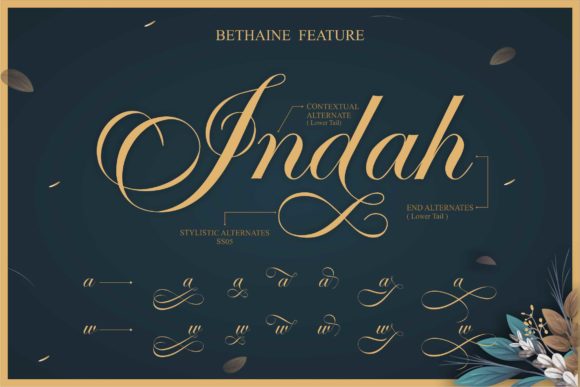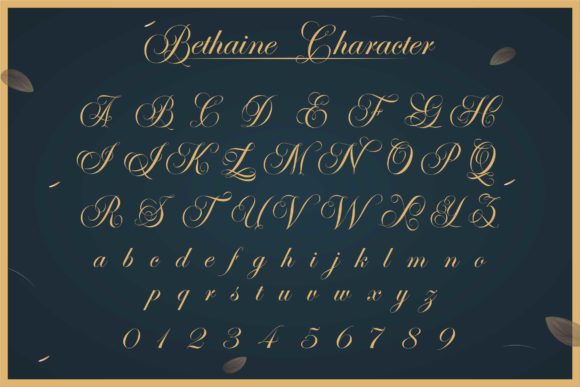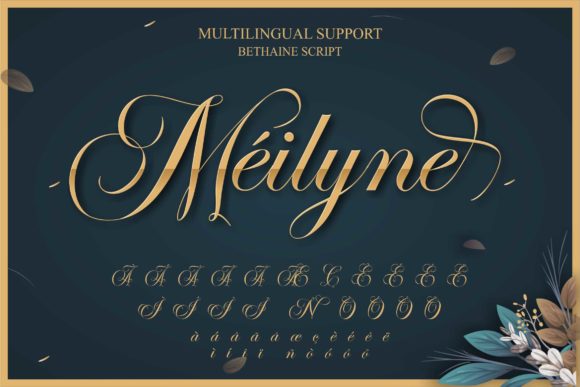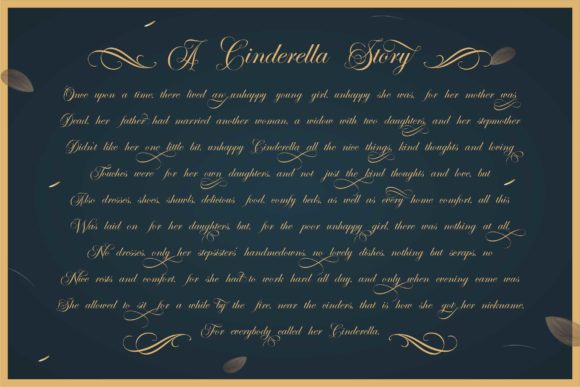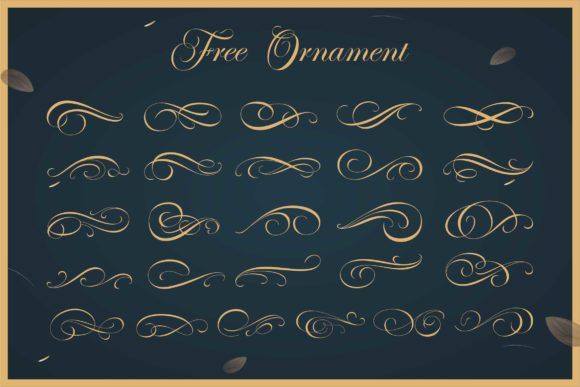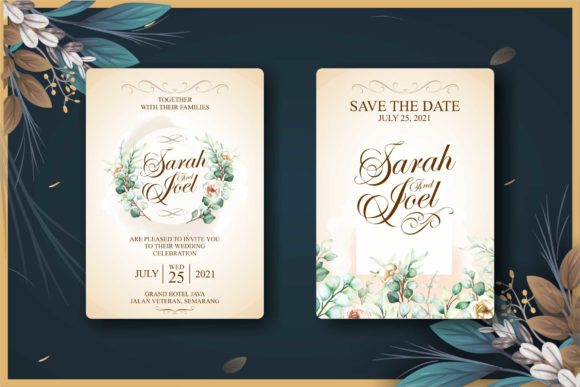
The Elegant Script of the Ancients: Introducing Bethaine Font
As a designer, have you ever been captivated by the elegance of ancient manuscripts? The way the script flows effortlessly, with each letter blending seamlessly into the next? It’s a moment of pure creative inspiration, and it’s exactly what sparked the creation of Bethaine Font. This exclusive script font is a masterful recreation of the classic handwriting styles of yesteryear, carefully crafted to evoke a sense of luxury and sophistication.
Bethaine Font is the perfect choice for designers seeking to add a touch of classic elegance to their work. With its smooth lines, gorgeous glyphs, and stunning alternates, it’s ideal for wedding media, book covers, greeting cards, logos, branding, business cards, and certificates. Plus, its PUA encoding ensures that you can access all the glyphs and swashes with ease, making it a valuable addition to any designer’s toolkit.
Bethaine Font Key Features
- Font Family: Bethaine Font comes in two font families, Bethaine and Bethaine Bold.
- Unique Characteristics: Bethaine Font features a unique blend of modern and vintage elements, with intricate details and elegant lines, making it suitable for luxury and high-end branding.
Bethaine Font Review
I recently had the chance to work with the Bethaine font, and I must say it’s a mixed bag. Here’s what I think:
- Unique and stylish design: Bethaine has a distinct, elegant feel to it that sets it apart from other fonts.
- Good legibility: The font is clear and easy to read, making it suitable for body text and headings.
- Cross-platform compatibility: Bethaine works well on both Windows and Mac, with no noticeable issues.
- Limited character set: Bethaine’s character set is somewhat limited, which may not be ideal for languages that require a wider range of characters.
- Not ideal for very small sizes: The font can become blurry and difficult to read when used at very small sizes.
- No bold or italic variations: While the font itself is stylish, the lack of bold or italic variations limits its versatility.
Overall, I think Bethaine is a solid choice for designers who want a unique, elegant font. However, its limitations mean it may not be suitable for every project. If you’re looking for a font that’s a bit more versatile, you may want to consider other options.
Tips for Getting the Most Out of Bethaine Font
Here are some tips for getting the most out of Bethaine font:
- Use Bethaine font for headings and titles to add a touch of elegance and sophistication.
- Pair Bethaine font with other elegant fonts to create a harmonious and balanced design.
- Experiment with different font sizes and colors to create visual interest and emphasis.
Bethaine font is suitable for a variety of design projects, including:
- Corporate branding and marketing materials
- Editorial and publishing designs
Alternatives to Bethaine Font for Designers
Lato is a modern sans-serif font designed by Łukasz Dziedzic. It’s a great alternative to Bethaine Font for designs that require a clean and minimalist aesthetic. Lato is highly legible and works well in both digital and print media. Compared to Bethaine Font, Lato has a more geometric and streamlined appearance, making it ideal for headings and body text in modern designs.
Montserrat is a sans-serif font designed by Julieta Ulanovsky. It’s a great choice for designers who want to add a touch of urban sophistication to their projects. Montserrat is highly versatile and works well in a variety of settings, from headings to body text. Compared to Bethaine Font, Montserrat has a more condensed and geometric appearance, making it ideal for designs that require a strong, modern feel.